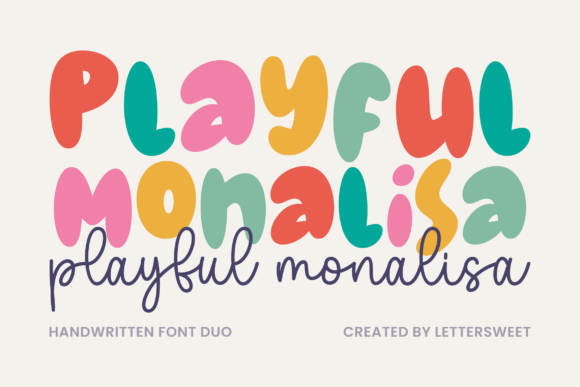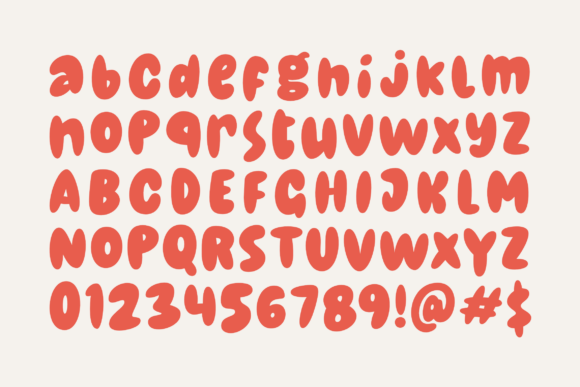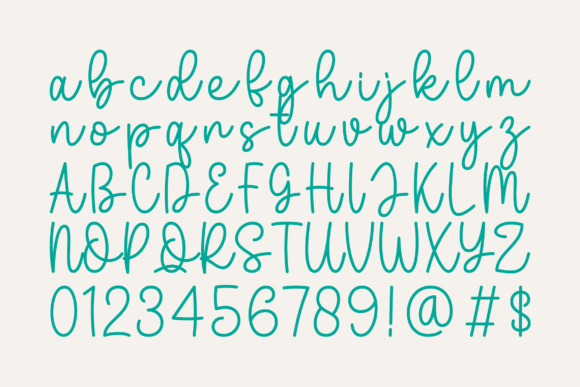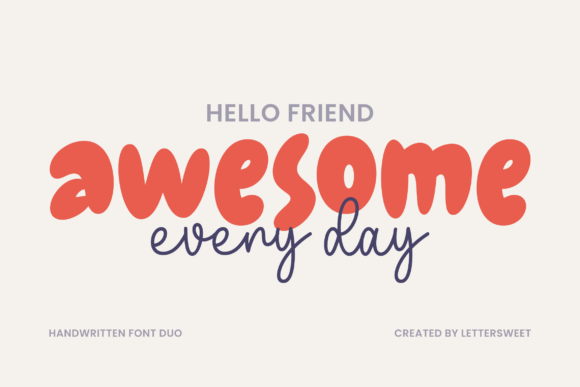
Playful Monalisa Font
About the Playful Monalisa Font
The Playful Monalisa Font is here to transform your projects with its distinctive character and style. Playful Monalisa is a fun and lively handwritten font duo designed to bring joy and creativity to your projects. The bold, bubbly uppercase letters are perfect for eye-catching headlines, while the elegant script adds a charming personal touch. Whether you’re designing children’s books, playful branding, greeting cards, or social media posts, Playful Monalisa will make your text stand out with its cheerful and whimsical aesthetic.
This font duo excels in applications requiring a lighthearted and approachable feel. Ideal uses include headlines, short-form text on packaging, posters, and social media graphics. It’s less suitable for body copy or lengthy paragraphs due to its informal nature and potential for reduced readability.
Playful Monalisa pairs well with clean sans-serif fonts like Open Sans for a balanced contrast, or with a geometric sans-serif for a more modern feel. For a touch of elegance, consider pairing the script with a classic serif like Garamond. Avoid pairing it with overly heavy or highly decorative fonts that might clash with its playful energy.
Its core personality is cheerful and friendly, conveying a sense of fun and approachability. Brands targeting younger audiences or promoting products with a lighthearted image will find this font particularly effective.
Playful Monalisa Font Usage Examples
Playful Monalisa Font Example